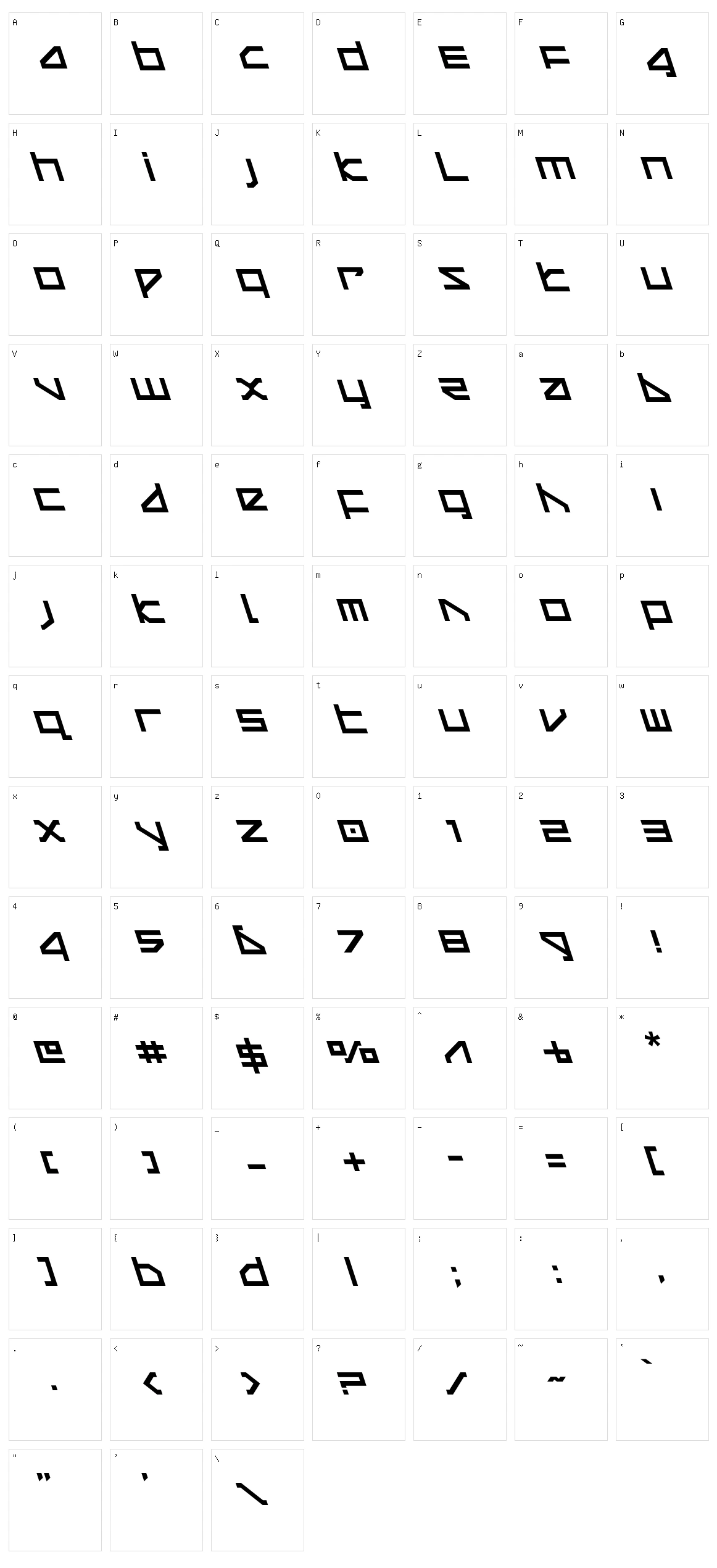
The free font Delta Ray is carefully designed by Iconian Fonts, showcasing a thoughtful balance of creativity and usability and falls under the Square font style. When you download the ZIP file, it contains only 829.23 KB of font files, making it lightweight and quick to download. Please review the license details below to understand permitted usage and distribution rights. If license information is not available, we recommend using this font for personal projects only or contacting the author directly for commercial usage permissions.
This font comes with the following 30 versions: Regular, Italic, Semi-Italic, Compact, Compact Italic, Compact Semi-Italic, Super-Italic, Leftalic, Condensed, Condensed Italic, Expanded, Expanded Italic, 3D, 3D Italic, Engraved, Engraved Italic, Punch, Punch Italic, Bevel, Bevel Italic, Title, Title Italic, Gradient, Gradient Italic, Bold, Bold Italic, Bold Compact, Bold Compact Italic, Chrome and Chrome Italic.